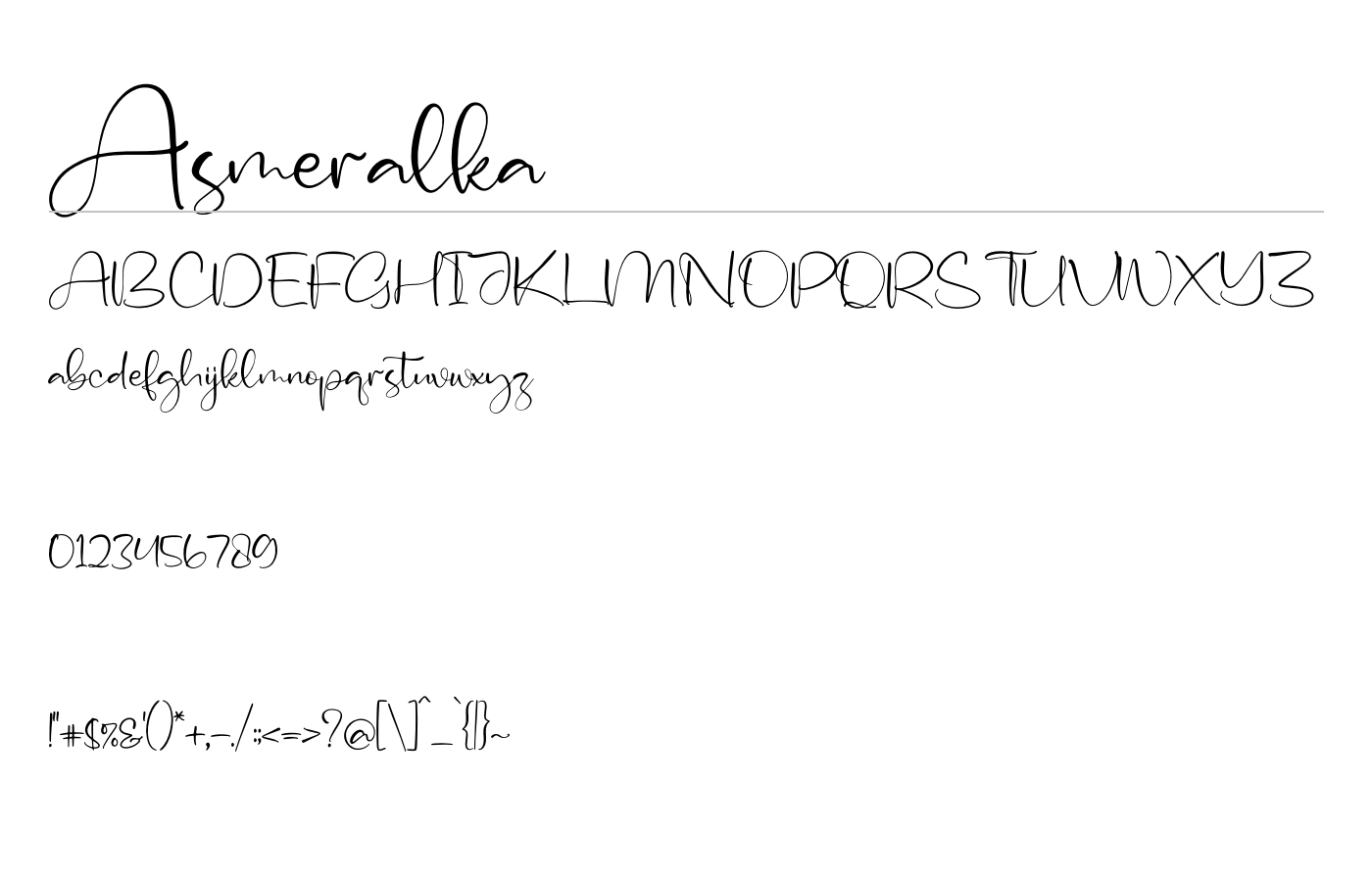
Asmeralka is a delicate, handwritten script font with a light and airy feel, featuring thin strokes and elegant, flowing letterforms. Its unique blend of playful uppercase shapes and fluid lowercase characters makes it perfect for adding a personal, artistic touch to branding, invitations, and creative projects. This font works well in designs that need a handwritten charm with a modern, graceful style.
Asmeralka Font
About Asmeralka Font